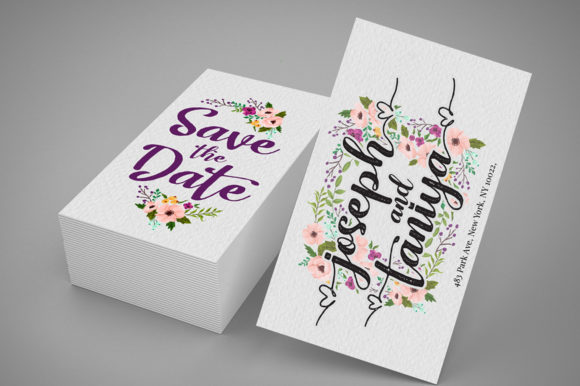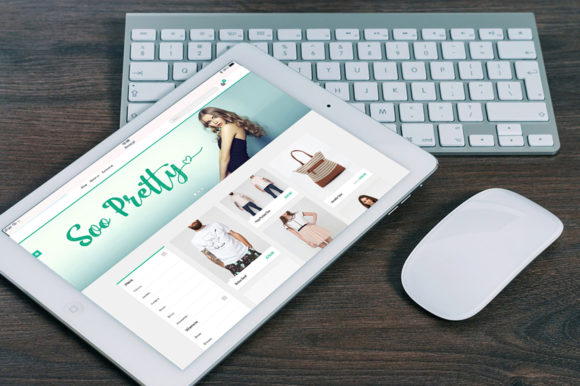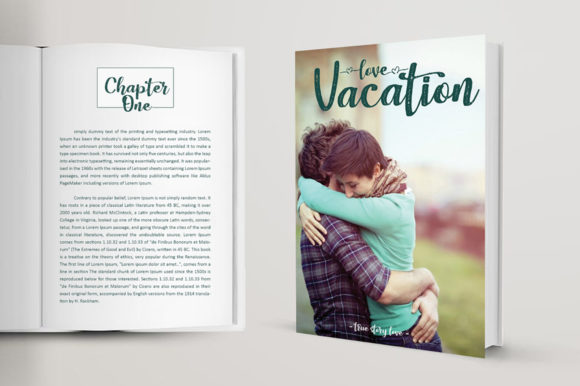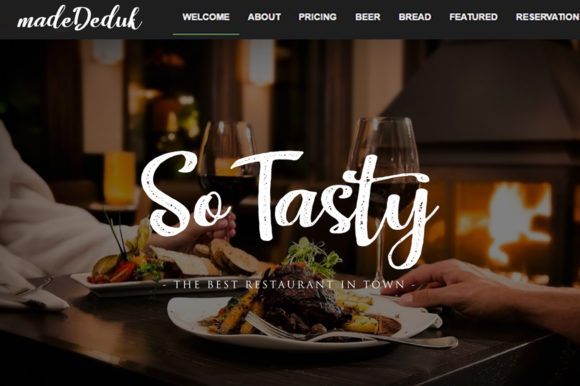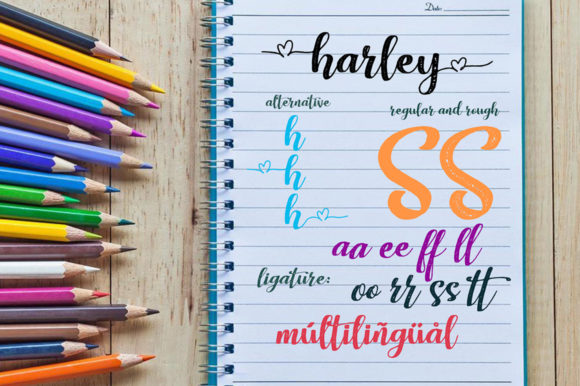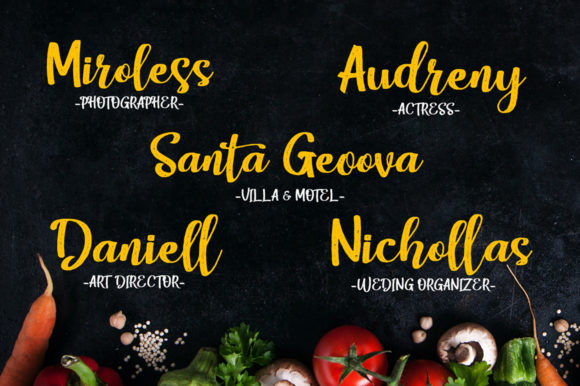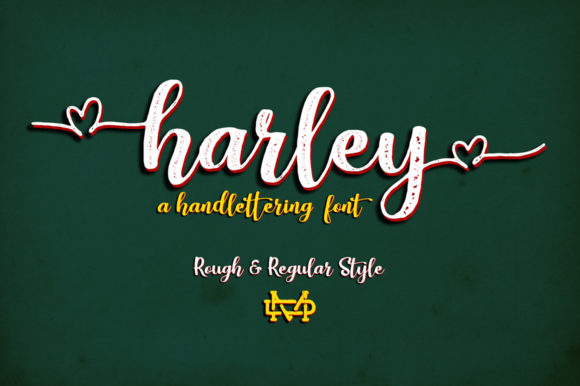
Introducing Harley Script Font: Adding a Touch of Authentic Charm to Your Designs
Are you tired of using the same old fonts in your designs? Do you want to add a touch of personality and whimsy to your projects? Look no further than the Harley Script Font! This fun and beautiful handwritten font is perfect for designers and crafters who want to add a unique feel to their work.
What is Harley Script Font?
Harley Script Font is a handwritten font that exudes a sense of authentic charm. Its unique feel is reminiscent of traditional handwriting, making it perfect for projects that require a personal touch. The font is designed to be highly legible, making it suitable for use in a variety of applications, from digital designs to print materials.
Key Features of Harley Script Font
- Unique and Authentic Feel: Harley Script Font has a distinct, handcrafted feel that sets it apart from other fonts.
- Highly Legible: The font is designed to be easy to read, making it perfect for use in body text, headings, and titles.
- Fun and Whimsical: Harley Script Font is perfect for designers and crafters who want to add a touch of personality to their work.
- Handwritten Style: The font is designed to mimic traditional handwriting, giving it a warm and inviting feel.
Uses for Harley Script Font
Harley Script Font is a versatile font that can be used in a variety of applications, including:
- Digital Designs: Use Harley Script Font in your digital designs, such as social media graphics, blog posts, and website headers.
- Print Materials: The font is perfect for use in print materials, such as brochures, flyers, and business cards.
- Crafting and Scrapbooking: Harley Script Font is a great addition to any crafter’s or scrapbooker’s toolkit, adding a personal touch to handmade projects.
- Signage and Displays: Use the font to create eye-catching signage and displays that are sure to grab attention.
Tips for Using Harley Script Font
To get the most out of Harley Script Font, follow these tips:
- Use it Sparingly: While Harley Script Font is beautiful, it can be overwhelming if used excessively. Use it sparingly to add emphasis and personality to your designs.
- Pair it with Other Fonts: Harley Script Font pairs well with other fonts, such as sans-serif fonts, to create visual interest and contrast.
- Experiment with Colors: The font looks great in a variety of colors, so don’t be afraid to experiment and find the perfect hue for your design.
Harley Script Font is a fun and beautiful handwritten font that adds a touch of authentic charm to any design. Its unique feel and highly legible design make it perfect for use in a variety of applications, from digital designs to print materials. Whether you’re a designer, crafter, or scrapbooker, Harley Script Font is a great addition to your toolkit. So why not give it a try and see the difference it can make in your designs?